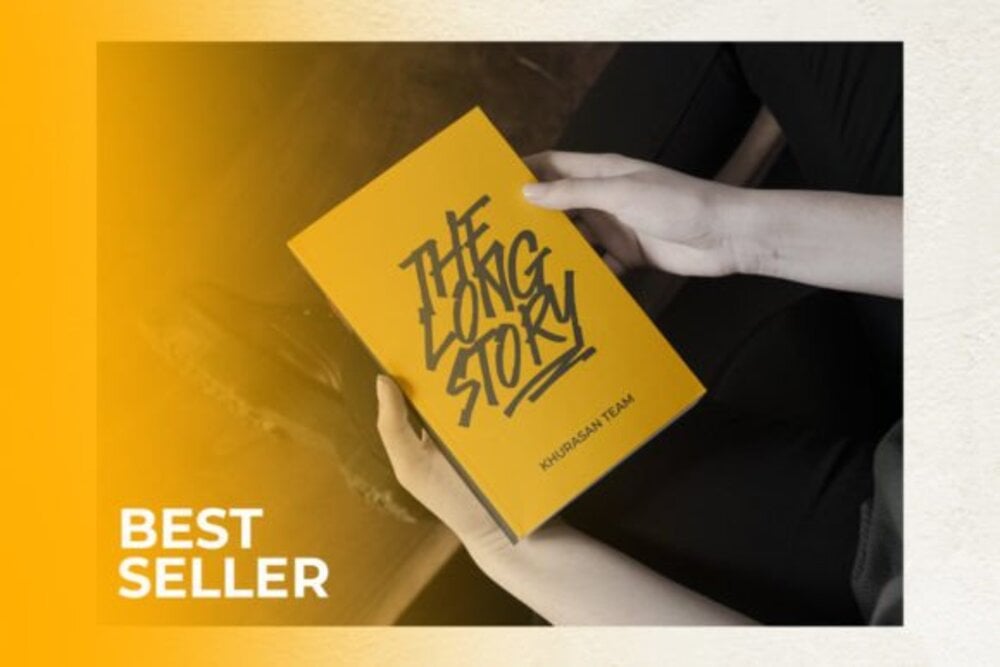
Dominos Blast Font
Dominos Blast is a bold and energetic display font, designed to make a powerful impact. Its strong, angular letterforms and dynamic, almost explosive, styling create a sense of action and excitement. Ideal for headlines, posters, and branding that demands attention, Dominos Blast brings a touch of edgy intensity. It’s perfect for projects seeking a modern, urban, or even slightly rebellious vibe.